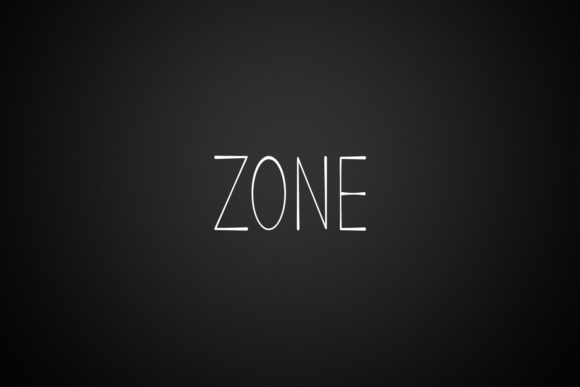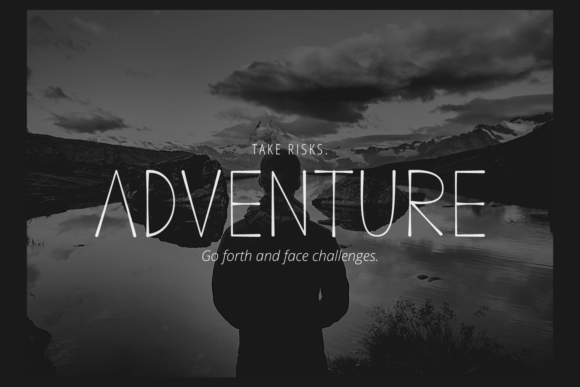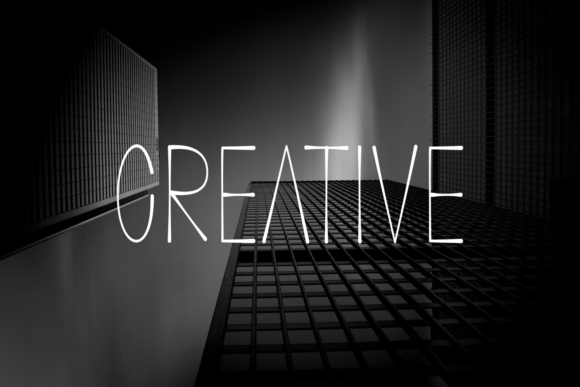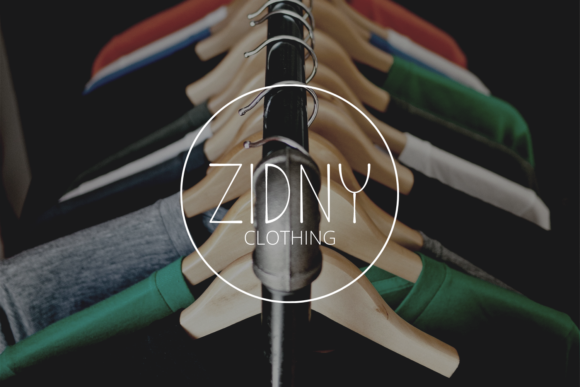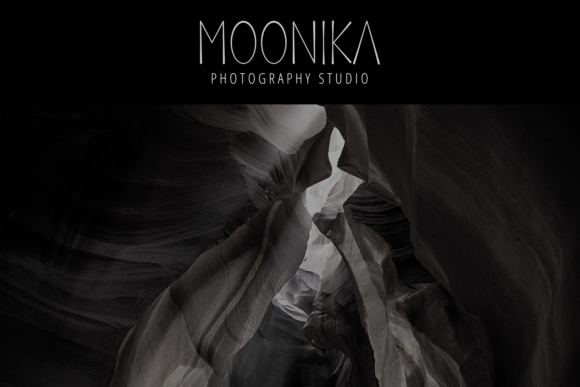
Crafter Font: Elevate Your Designs with a Thin, Simple, and Versatile Sans Serif Font
Are you a designer or crafter looking for a font that can add a touch of elegance and sophistication to your projects? Look no further than the Crafter Font. This thin lettered and simple sans serif font is perfect for a wide range of creative endeavors, from crafting and DIY projects to graphic design and digital art. In this article, we’ll explore the features and benefits of the Crafter Font, and show you how it can help take your designs to the next level.
What is Crafter Font?
Crafter Font is a modern sans serif font that is characterized by its thin and simple lettering style. It is a highly versatile font that can be used in a variety of contexts, from digital designs to print materials. The font is clean, elegant, and easy to read, making it perfect for use in headlines, body text, and other design elements.
Key Features of Crafter Font
So what makes Crafter Font so special? Here are some of its key features:
- Thin lettering style: Crafter Font features a thin and delicate lettering style that adds a touch of elegance to any design.
- Simple sans serif design: The font’s simple sans serif design makes it easy to read and versatile enough to use in a wide range of contexts.
- Highly legible: Despite its thin lettering style, Crafter Font is highly legible, even at small sizes.
- Perfect for digital and print designs: Crafter Font can be used in both digital and print designs, making it a great choice for designers and crafters who work across multiple mediums.
Benefits of Using Crafter Font
So why should you choose Crafter Font for your next design project? Here are some of the benefits of using this versatile font:
- Adds elegance and sophistication: Crafter Font’s thin lettering style and simple sans serif design add a touch of elegance and sophistication to any design.
- Versatile and adaptable: The font’s versatility makes it easy to use in a wide range of contexts, from digital designs to print materials.
- Improves readability: Crafter Font’s high legibility makes it easy to read, even at small sizes.
- Great for headlines and body text: The font’s clean and elegant design makes it perfect for use in both headlines and body text.
How to Use Crafter Font in Your Designs
So how can you use Crafter Font in your designs? Here are some ideas to get you started:
- Pair it with bold fonts: Pair Crafter Font with bold fonts for a striking contrast that adds visual interest to your designs.
- Use it for headlines and titles: Crafter Font’s elegant design makes it perfect for use in headlines and titles.
- Add it to your digital designs: Use Crafter Font in your digital designs, such as social media graphics, blog posts, and website headers.
- Use it for print materials: Crafter Font is also great for use in print materials, such as brochures, flyers, and business cards.
In conclusion, Crafter Font is a versatile and elegant sans serif font that is perfect for designers and crafters looking to add a touch of sophistication to their projects. Its thin lettering style, simple design, and high legibility make it easy to use in a wide range of contexts, from digital designs to print materials. Whether you’re looking to create striking headlines, elegant body text, or beautiful digital designs, Crafter Font is a great choice. So why not give it a try and see how it can elevate your designs?
Crafter Font can easily be matched to an incredibly large set of projects, so add it to your creative ideas and notice how it makes them stand out!